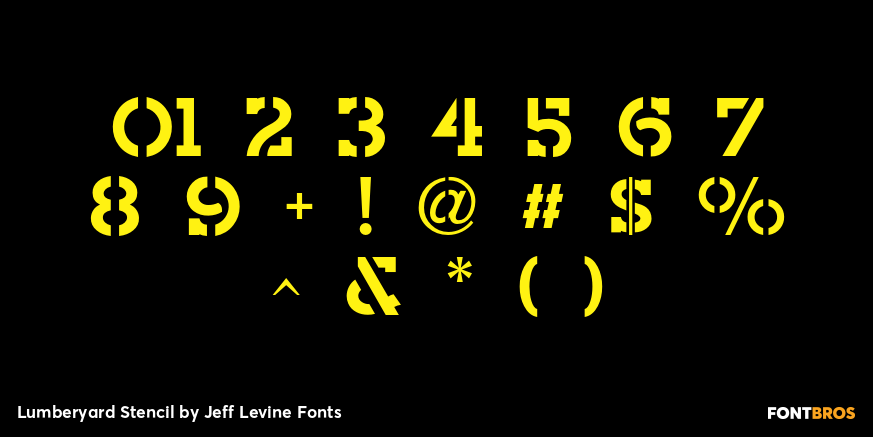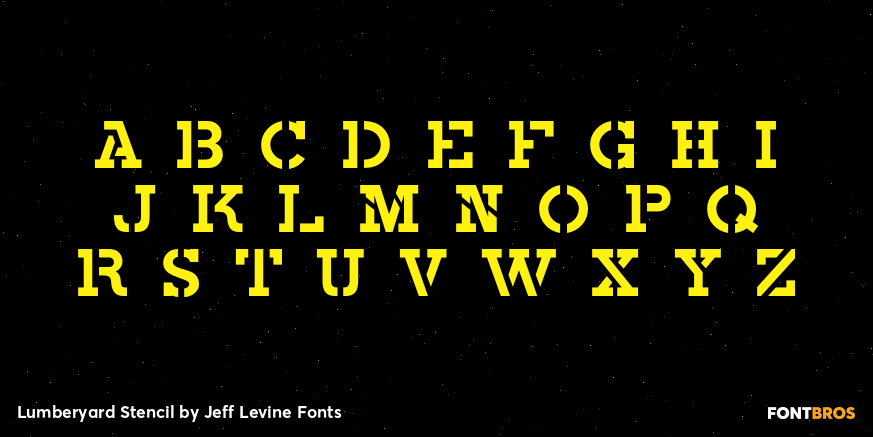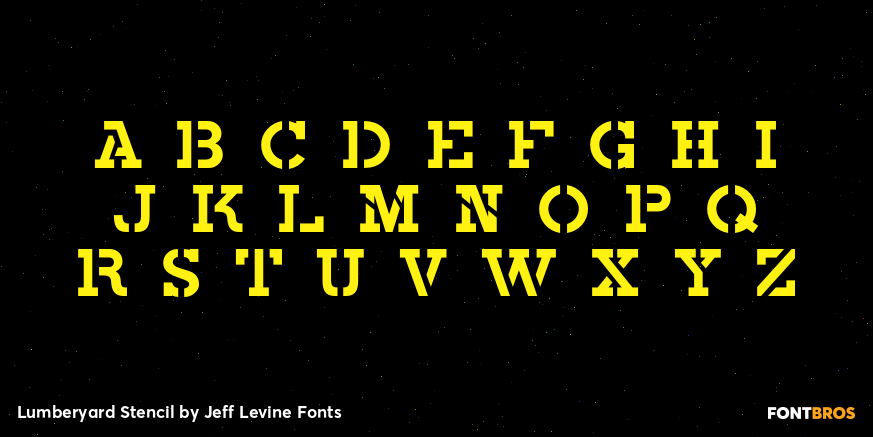
Lumberyard Stencil
Lumberyard Stencil JNL was inspired by the image of an antique brass stencil that was probably used for marking various wood products by a lumber company.
It's available in both regular and oblique versions.